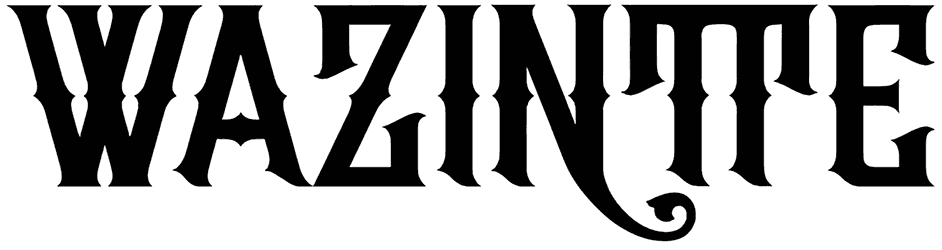
Wazintte Font
If you tend to adorn your next design with a bit of an exception and retro effect, come on to try out Wazintte. This gothic font with two series of caps, while leaving out lowercase letters, makes progress toward a satisfactory result for you.
Since recalled as retro font due to its spurry, jagged formatting, it can assemble many antique assortments for countless innovations and fits right on logos, flyers, video games, and more.